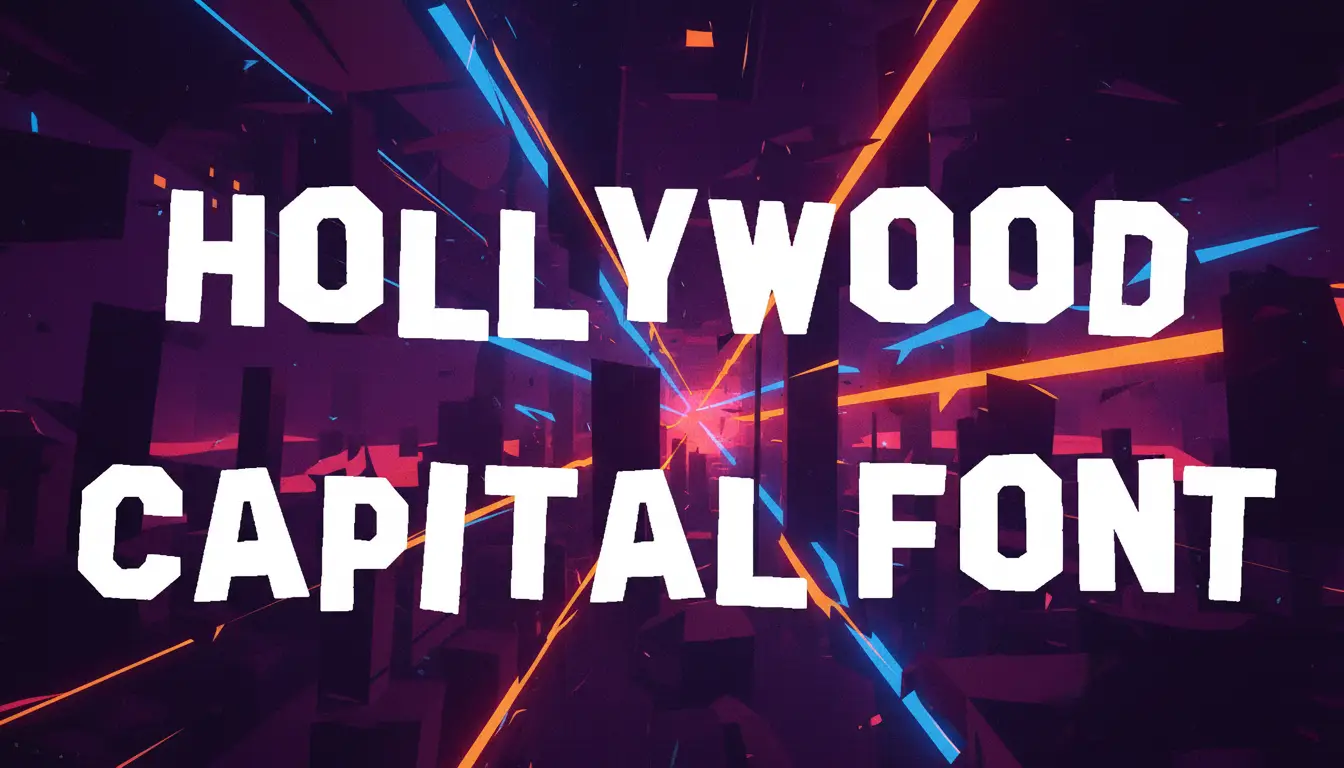
Hollywood Capital Font
Hollywood Capital
What You Can Type With Hollywood Capital
With complete upper and lowercase letters and all ten digits, Hollywood Capital is ready for real wording, not just a single headline. Common punctuation such as &, !, ? and @ is included as well. It also has the accented letters you need for Spanish, French, German, Portuguese and Italian.
Where Hollywood Capital Works Best
Hollywood Capital is a natural fit for posters, logos and eye-catching headlines. Use it for one standout word or headline and let simpler fonts handle the rest.
Does Hollywood Capital support accented letters?
Yes. Hollywood Capital includes the accented letters needed for Spanish, French, German, Portuguese and Italian, so it works for more than just English.